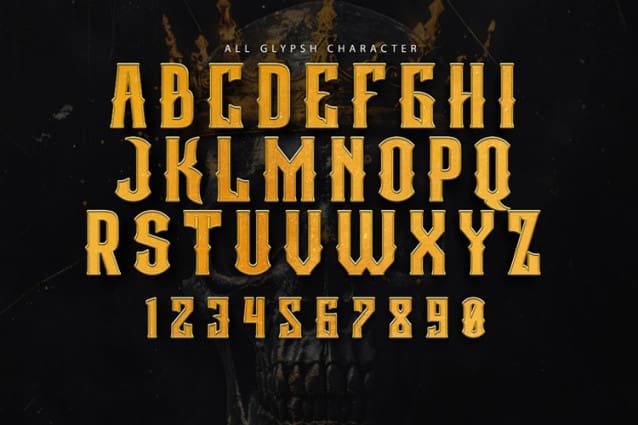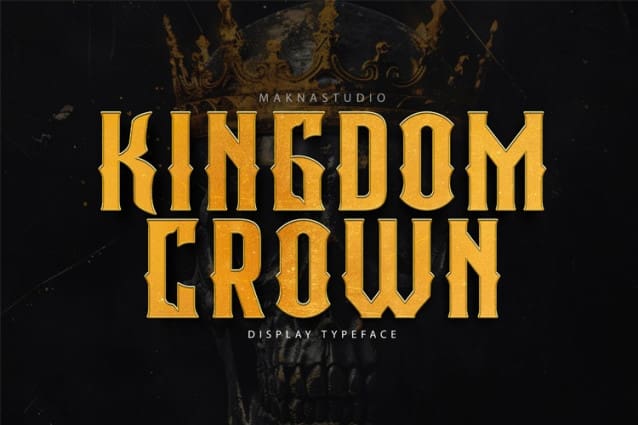
Kingdom Crown Font
Kingdom Crown Font lets Embrace timeless elegance with our ancient-inspired typeface, merging regal motifs with modern clarity for a majestic touch to your designs.